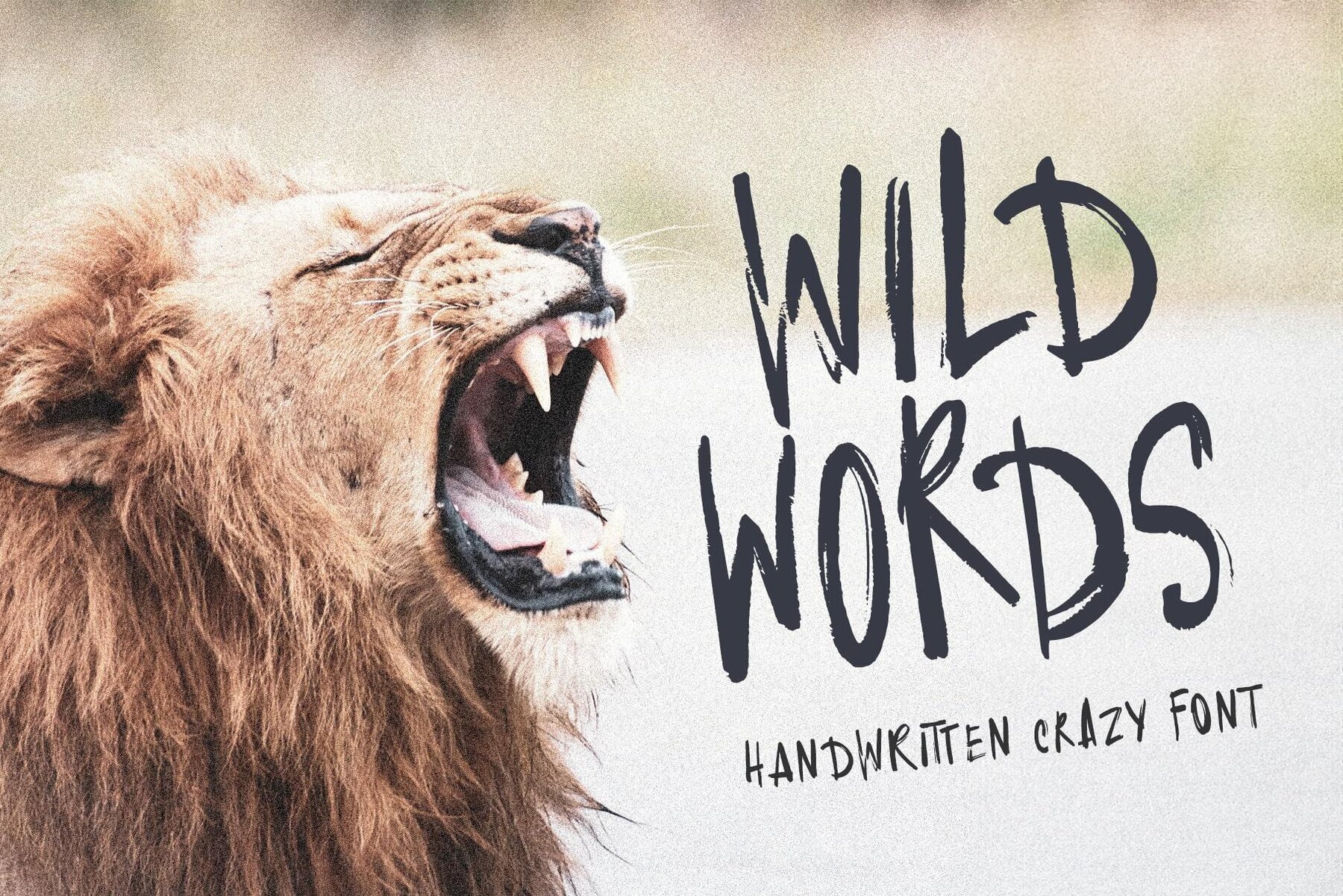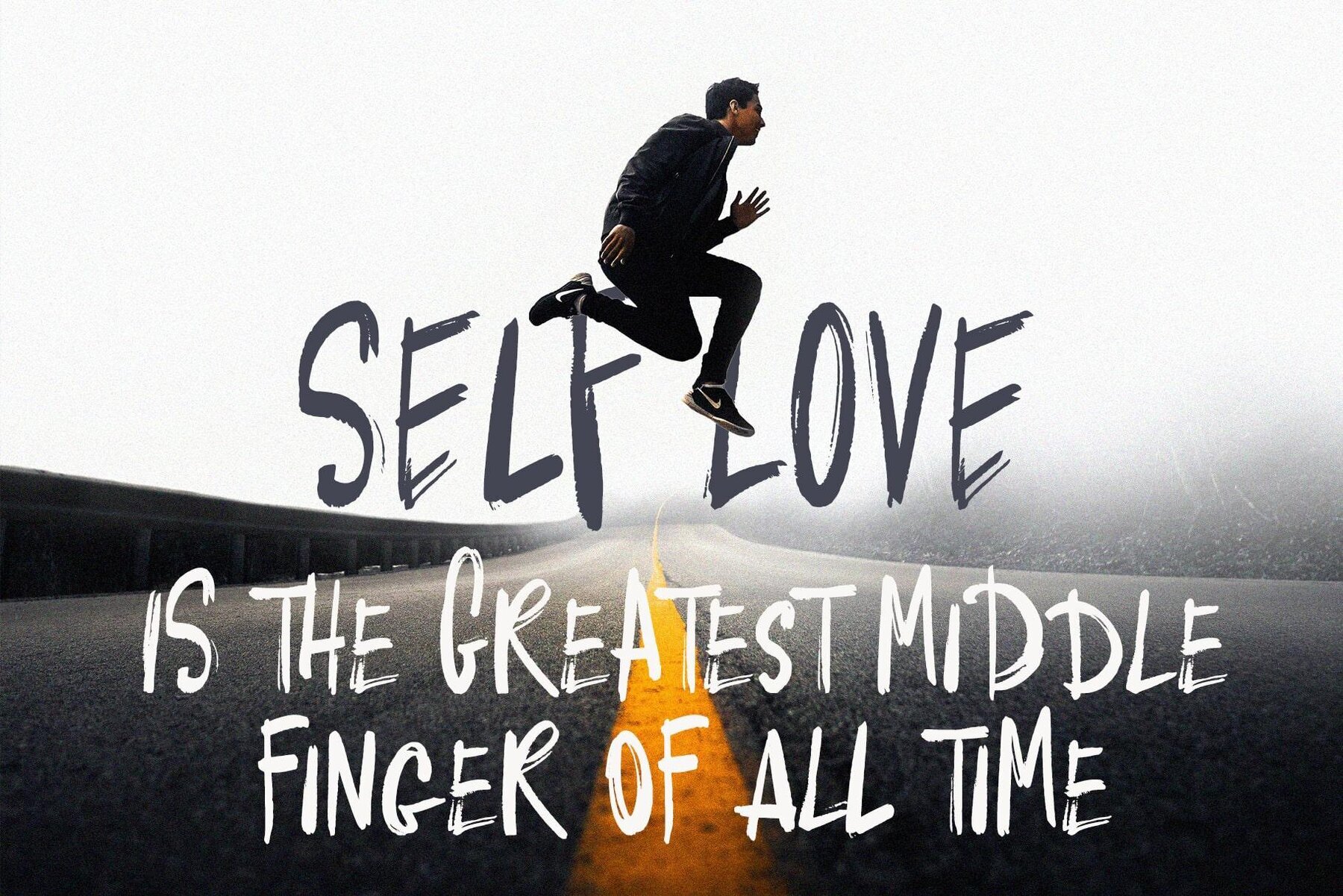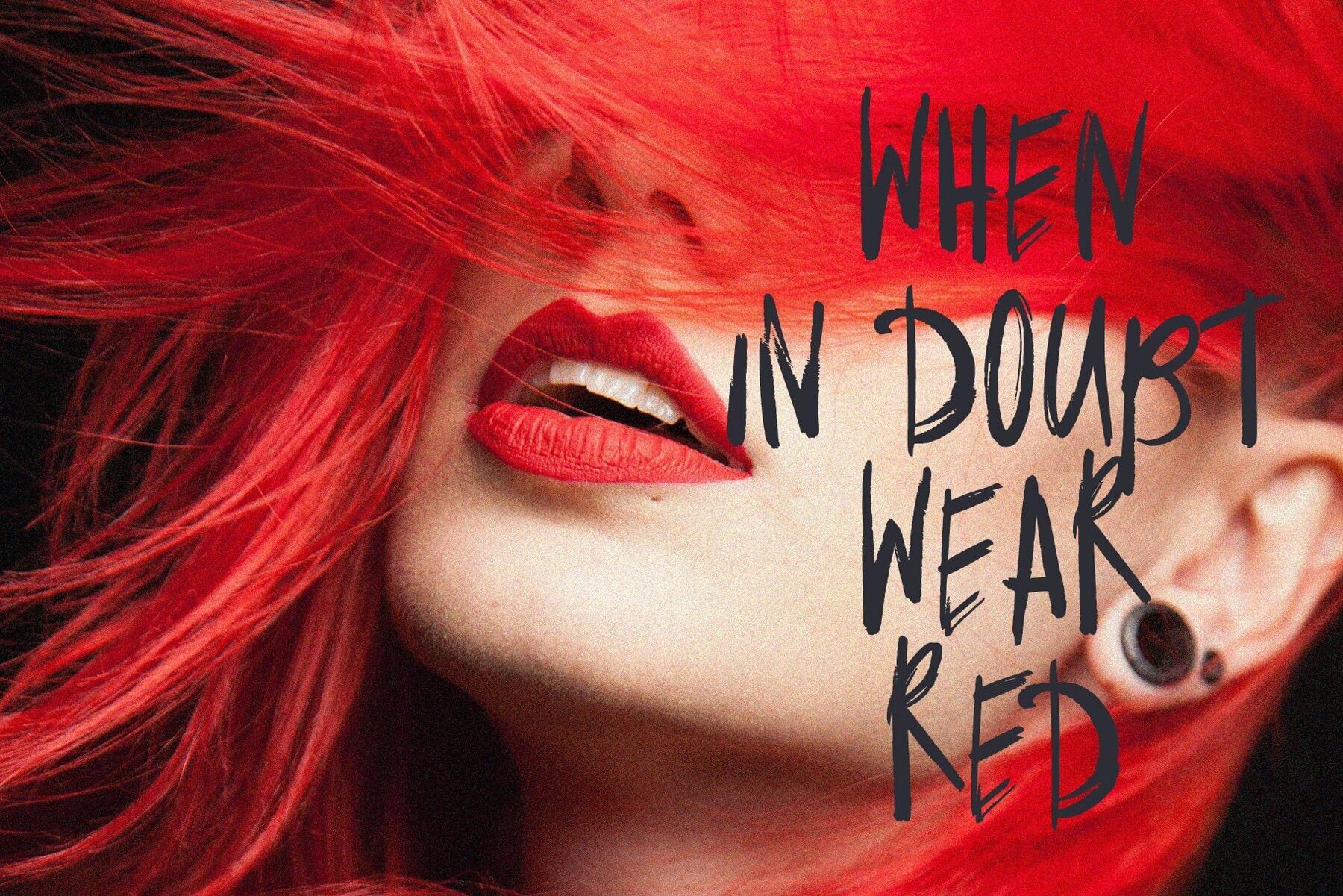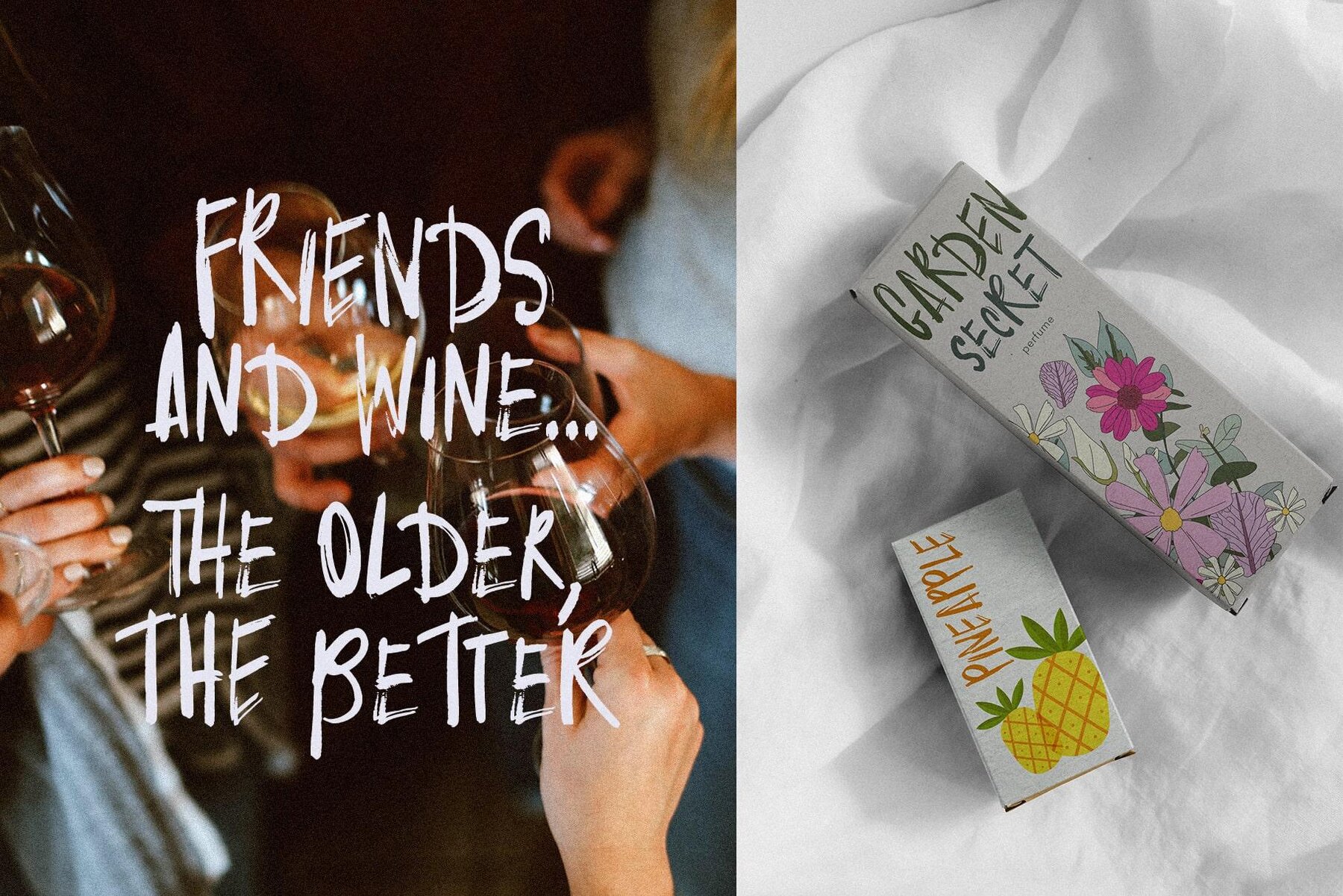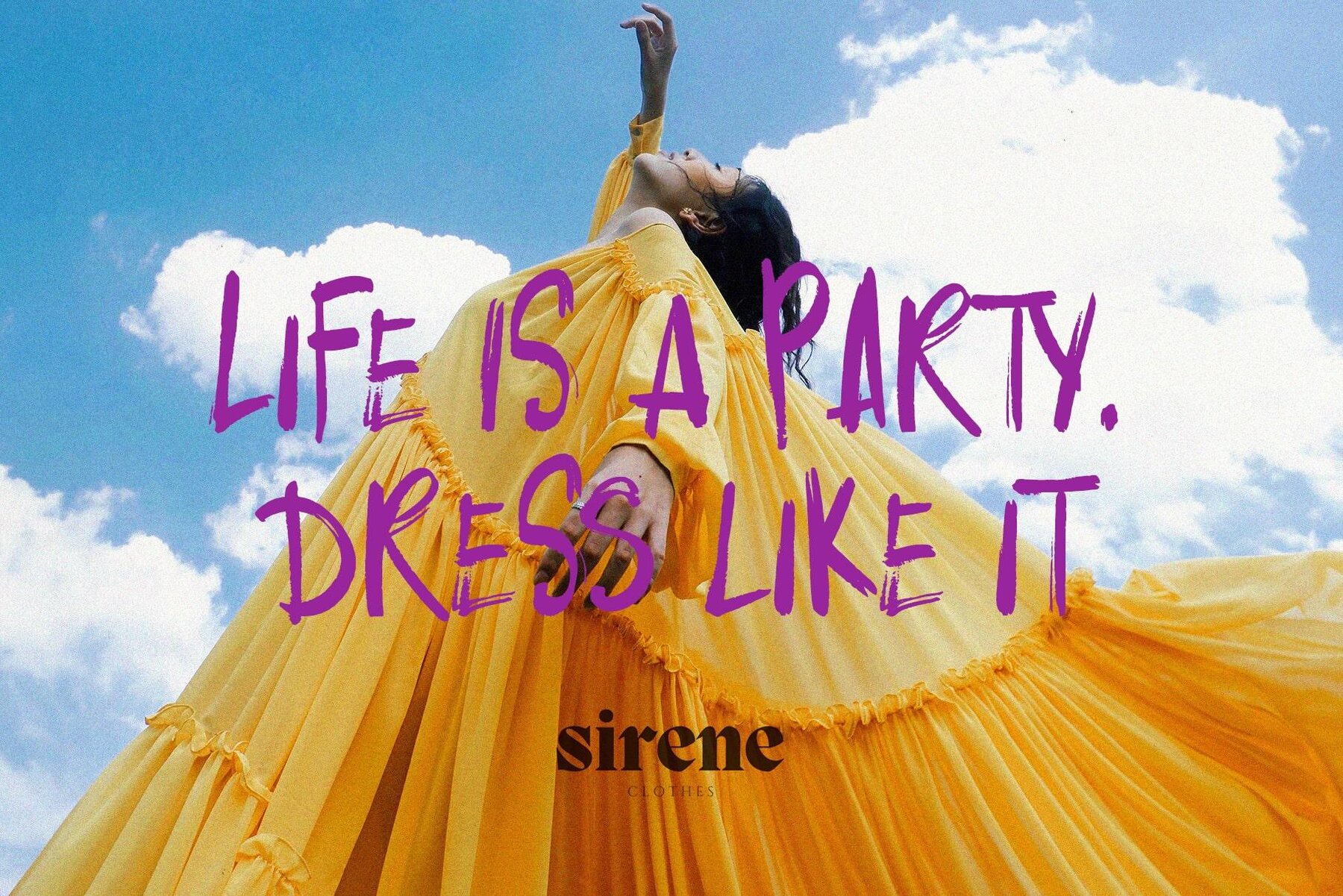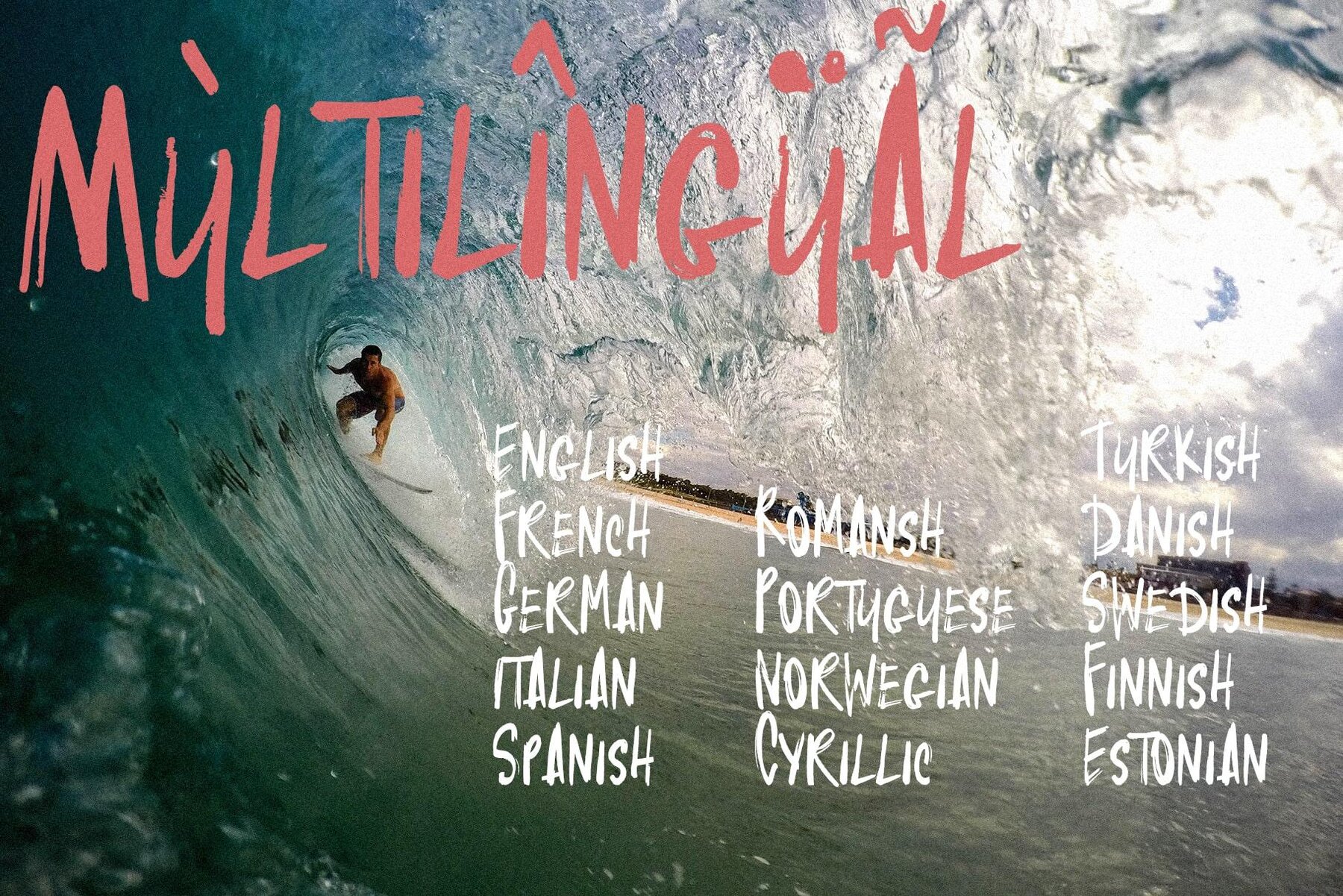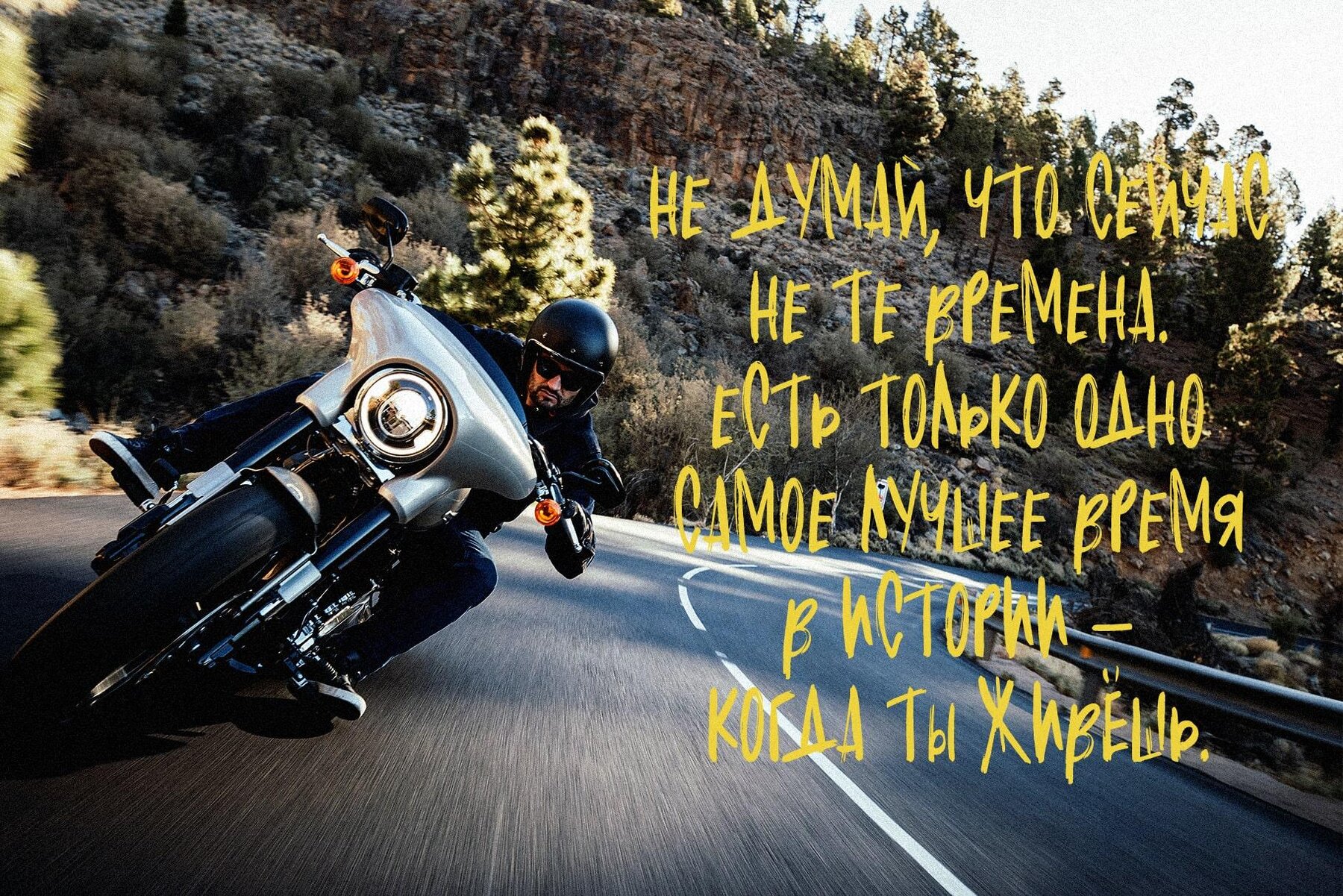
Wild Words Font
Wild Words
Unleash your creativity with Wild Words, a unique handwritten font that exudes charm and spontaneity. Crafted with the natural strokes of a drying marker, this font's lively characters seem to dance to their own rhythm. Its textured, dynamic feel effortlessly blends uppercase and lowercase characters, offering endless possibilities for word artistry. Revel in a collection rich with ligatures and alternative characters, providing authenticity to your projects. Designed to meet diverse needs, Wild Words supports multiple languages, including Cyrillic. Whether you're working on logo design, packaging, advertising, product development, websites, or blogs, this font complements and enhances your visual narratives. Please note that text and mockups are not included in the package.Wild Words: A Handwritten Adventure
Versatile and Inclusive